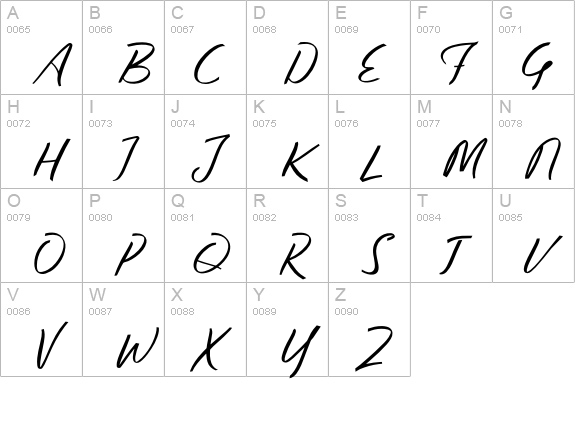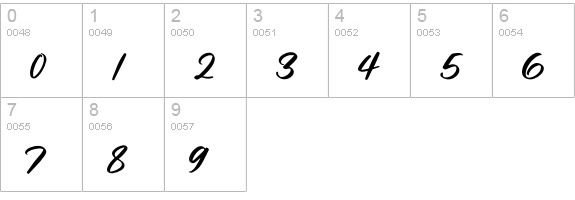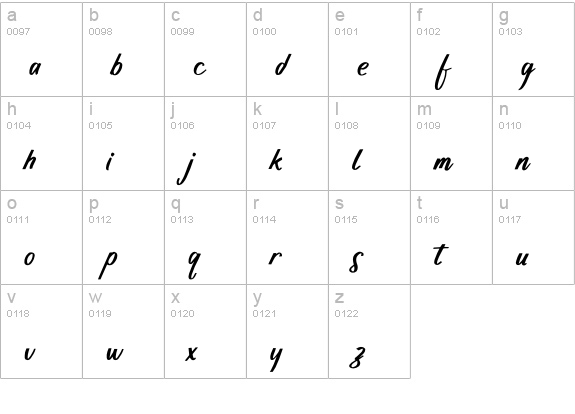
Edward Script Font is a stunning and elegant typeface that exudes sophistication and charm. With its graceful curves and intricate details, this font is perfect for adding a touch of luxury to any design project. Whether you're creating wedding invitations, branding materials, or elegant signage, Edward Script Font will elevate your work to the next level.